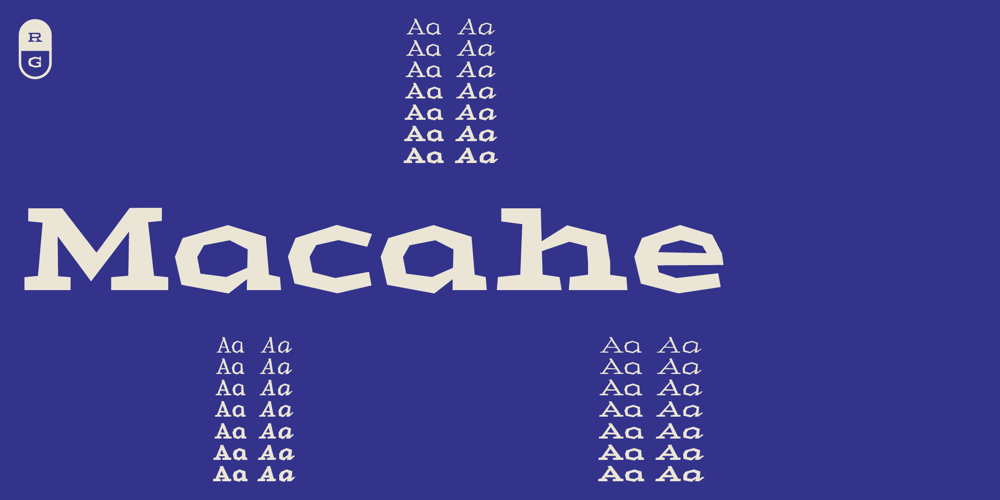
Macahe
Macahe font
Macahe Font Family was designed by Rômulo Gobira and published by Rômulo Gobira. Macahe contains 42 styles and family package options. Macahe is a modern slab serif with dynamic and irregular shapes. It comes with 7 weights, 3 widths and matching (true) italics. The typeface was inspired and name after the city I was born (Macaé-RJ, Brazil), turning the mixture between nature/beach life and the chaotic urban growth into typography. The options (weight, width and true italics) make the font useful both for web and print in multiple occasions; think websites, posters, logos, signage, packaging and etc. Macahe covers multiple languages, including a wide range of Latin and some Cyrillic languages. It also includes a full range of numerals (included old style figures, numerators, denominators), small caps, standard & discretionary ligatures and stylistic alternates. Those features and variations make Macahe a useful tool for any graphic designer.